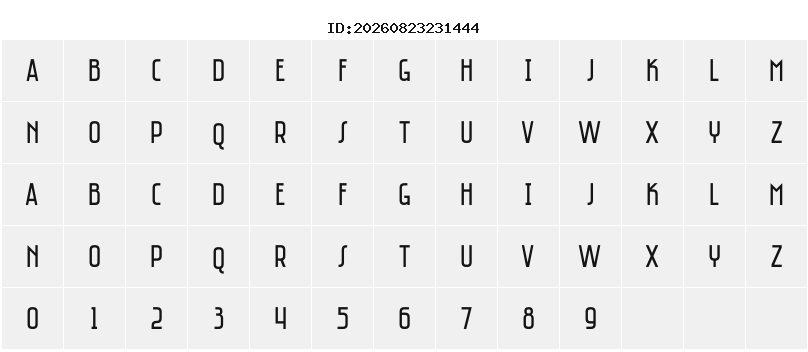
Saniretro Preview
• Font Name: Saniretro
• Designer: Jayvee D. Enaguas (Grand Chaos)
About Saniretro.ttf
Saniretro.ttf is a modern, elegant sans-serif font designed for ultimate readability and visual harmony. Perfect for branding, headlines, web design, and print materials.